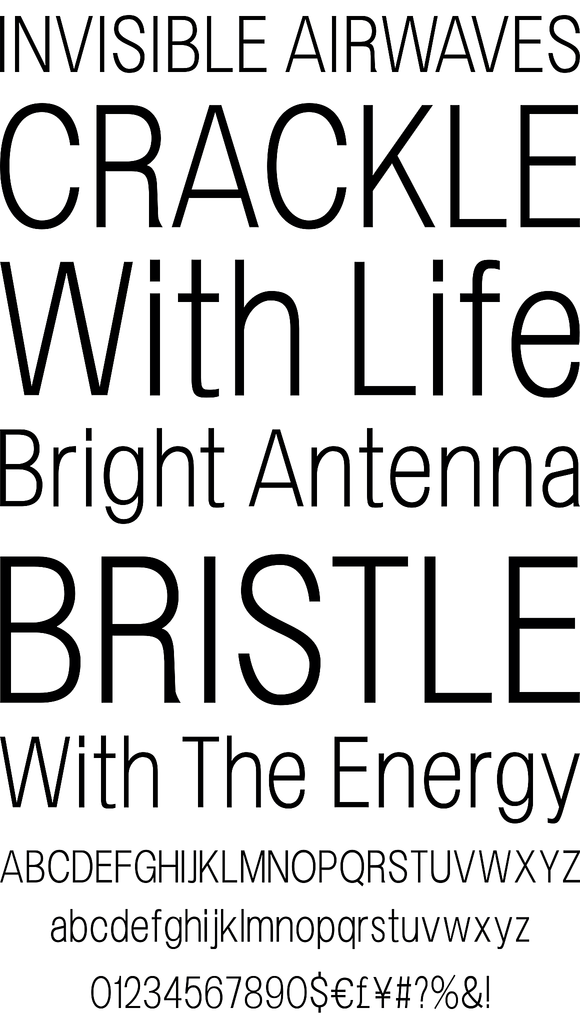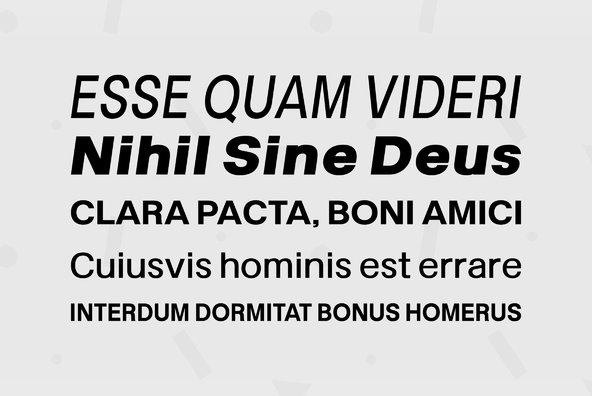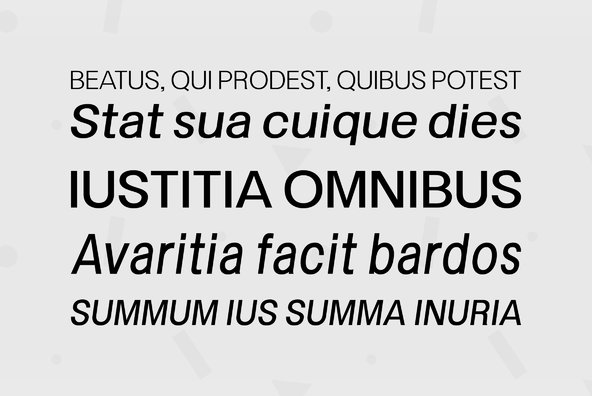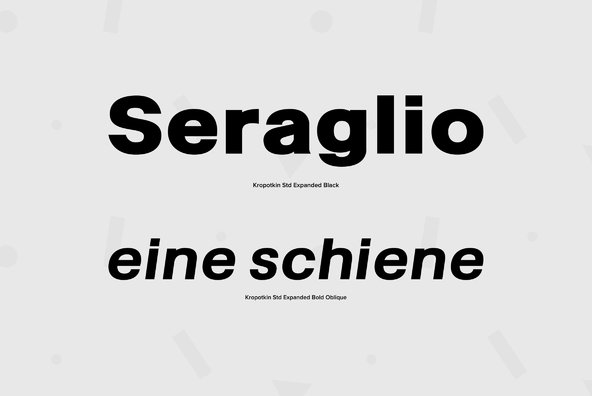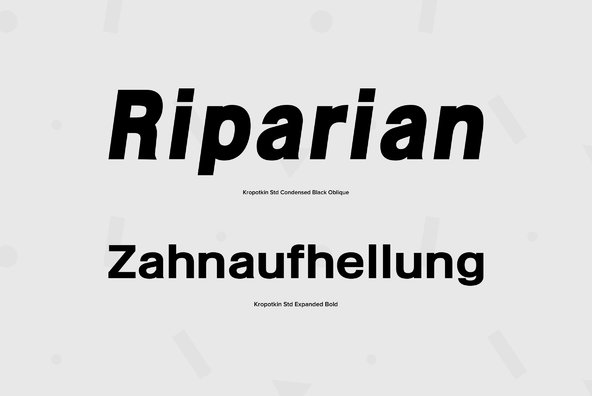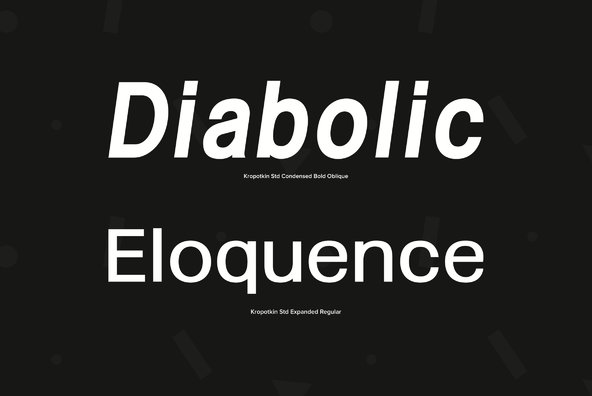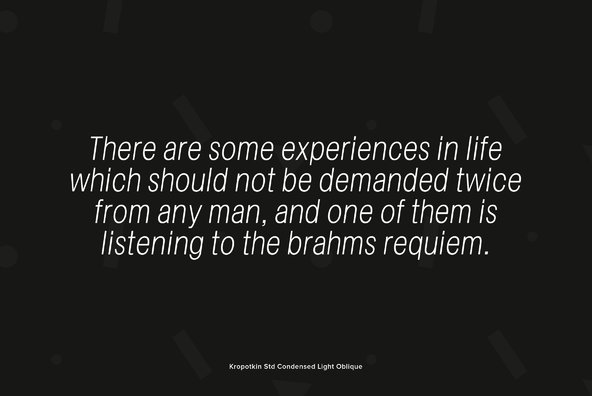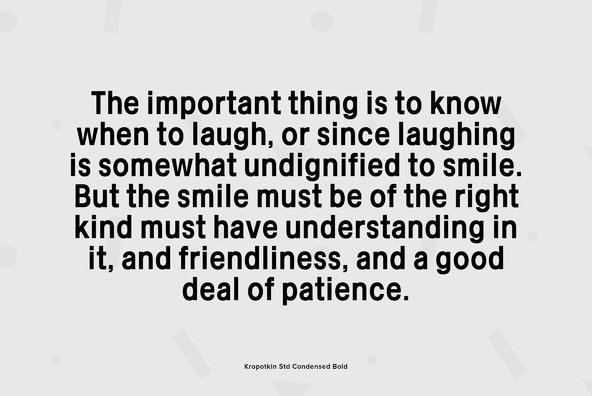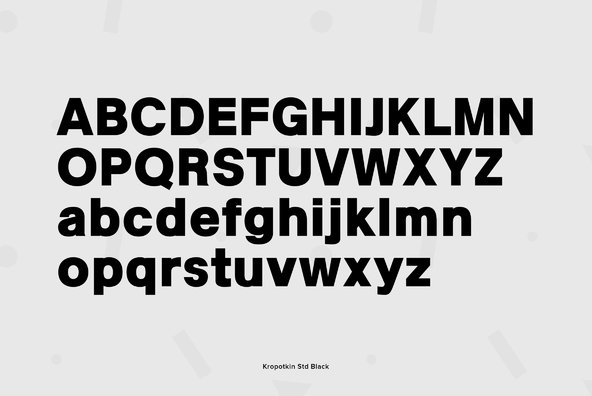
Kropotkin is the font classified by Grotesque Sans. Old-fashioned Grotesque typeface which was on the old lettering manual of Japan had an influence, and I designed this font.
Kropotkin is the font classified by Grotesque Sans. Old-fashioned Grotesque typeface which was on the old lettering manual of Japan had an influence, and I designed this font. I gave this font originality by adding my interpretation to that. It was made to seem that light and regular were delicate by making the stroke of length and breadth as equal as possible, and bold and black were made to give it powerful impression.